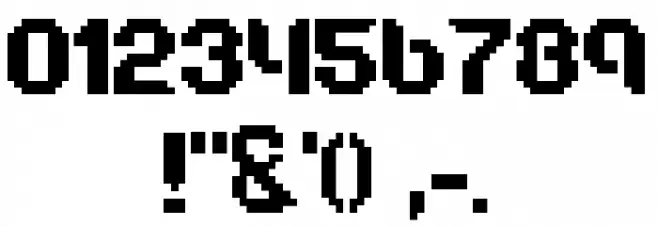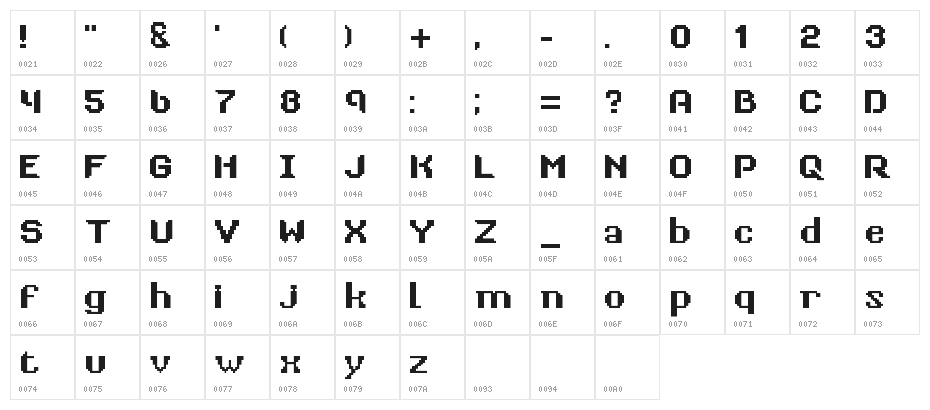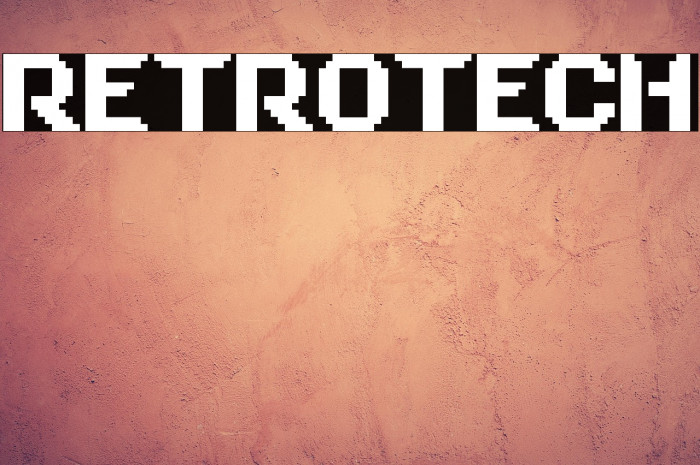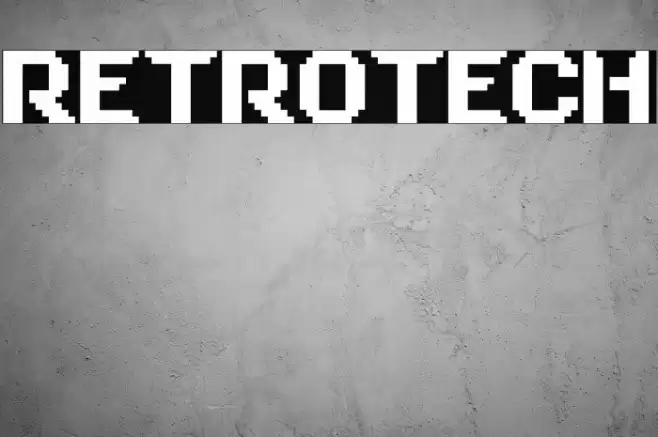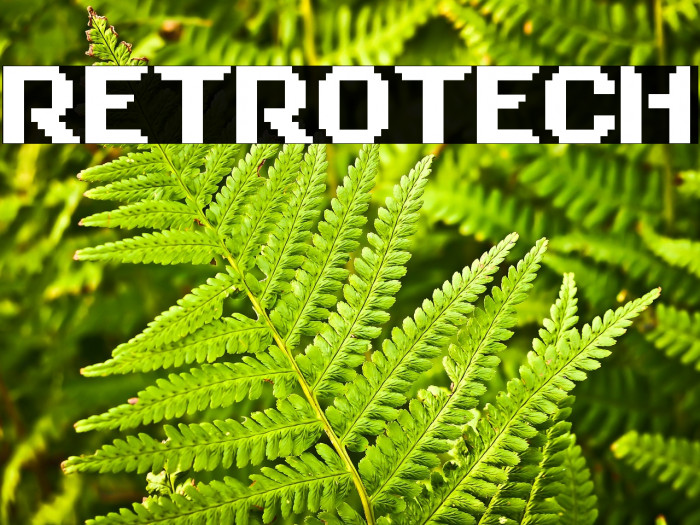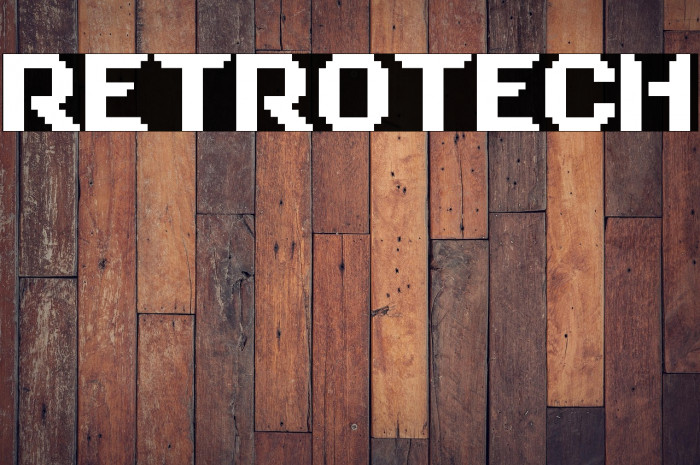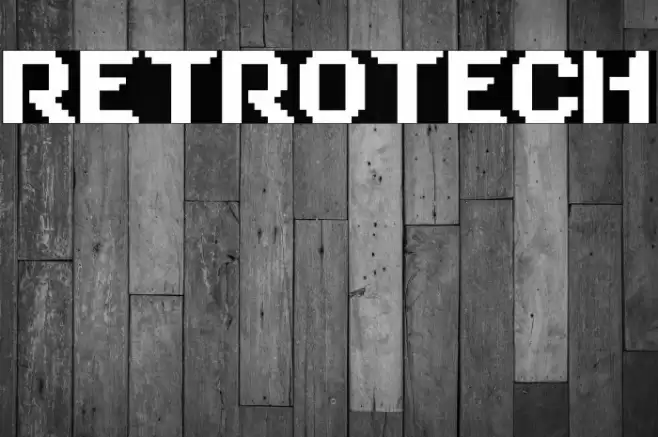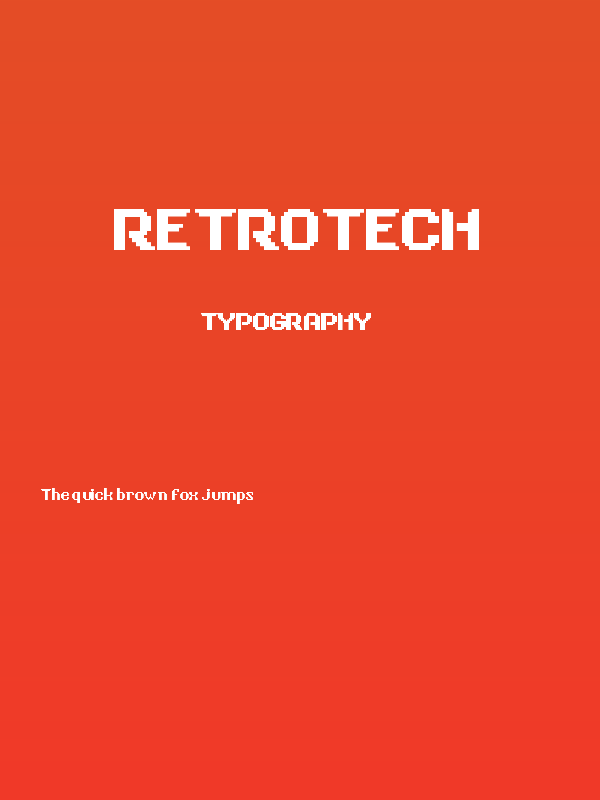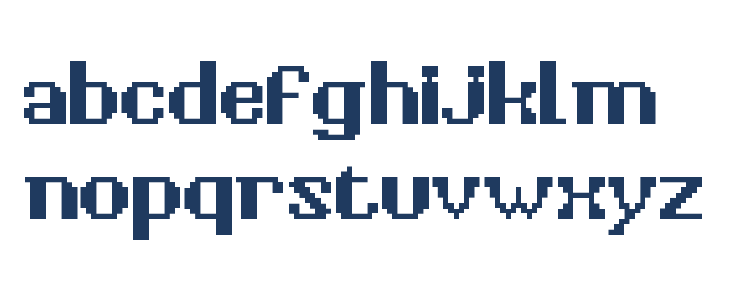
RETROTECH Font
RETROTECH Description
This font embodies a bold and blocky aesthetic reminiscent of early digital or arcade-style typefaces. The characters are uniformly thick, with a geometric and pixelated appearance that evokes a sense of nostalgia for retro technology. The uppercase and lowercase letters maintain a consistent width, contributing to a cohesive and structured look. The numerals and special characters follow the same design principles, ensuring uniformity across all glyphs. This font's design is straightforward yet impactful, making it ideal for projects that aim to capture a vintage or tech-inspired theme.
| Overall Style | Retro, Tech-inspired |
| Use Case | Headlines, Logos, Digital Art |
| Proposed Projects | Ideal for retro-themed designs, video game graphics, tech logos, and digital art projects. |